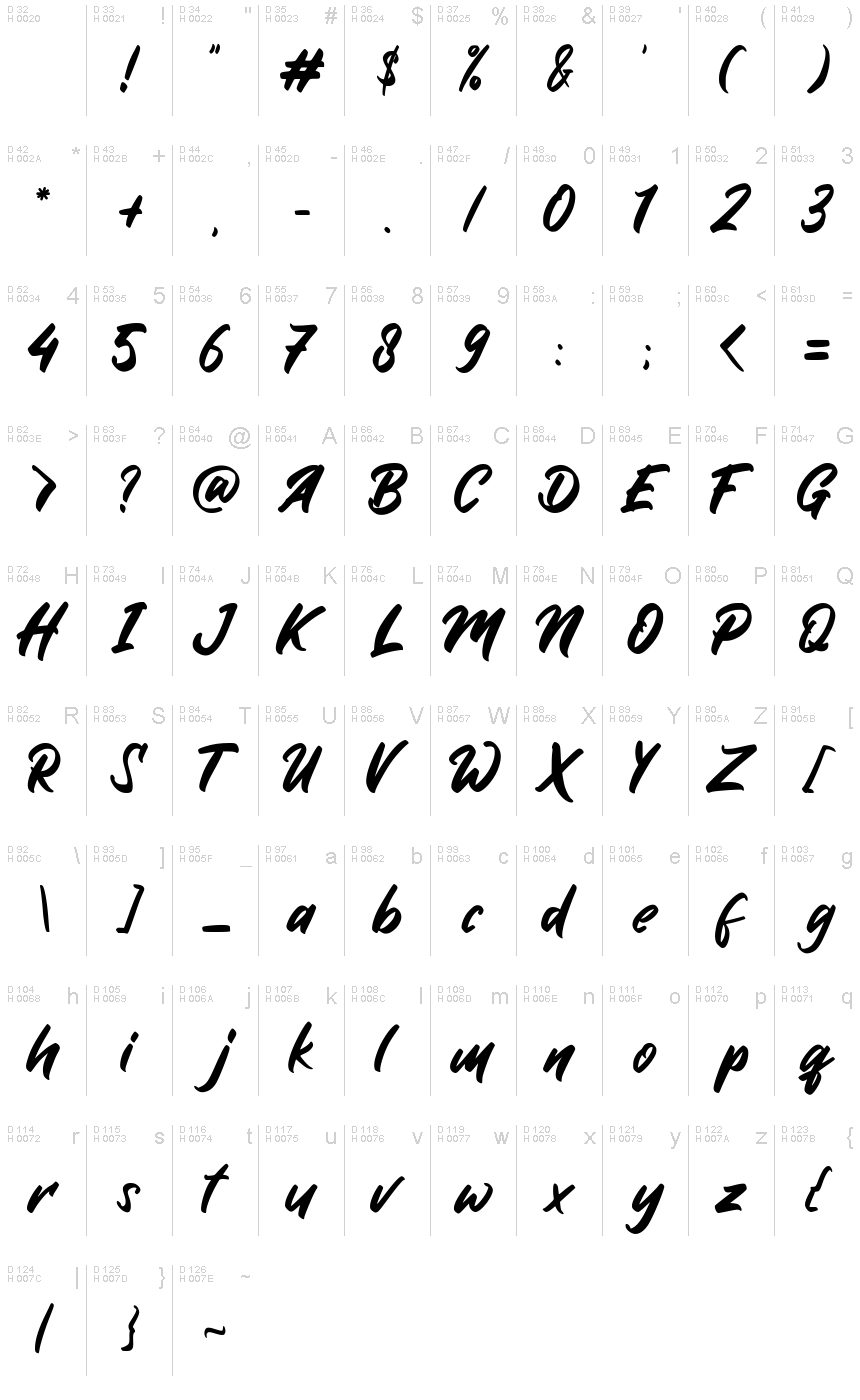
Graby
Graby, designed by Ikrar Bey Khubaib, is a distinctive semi-bold handwritten font that captures the essence of personal touch in digital typography. Its fluidity and expressiveness evoke the warmth of human handwriting, making it an excellent choice for projects seeking to convey intimacy and individuality.
With its robust yet graceful strokes, Graby strikes a balance between readability and stylistic flair. This versatility enables it to shine across various creative contexts, from branding and advertising to editorial design. The organic curves and natural flow lend a casual sophistication to any text, while maintaining an approachable demeanor.
Graby's handwritten style adds character to invitations, social media graphics, and personalized merchandise. Its semi-bold weight ensures that it stands out even when used in shorter passages or as accent text. Embrace Graby for designs that require a font with personality and charm.